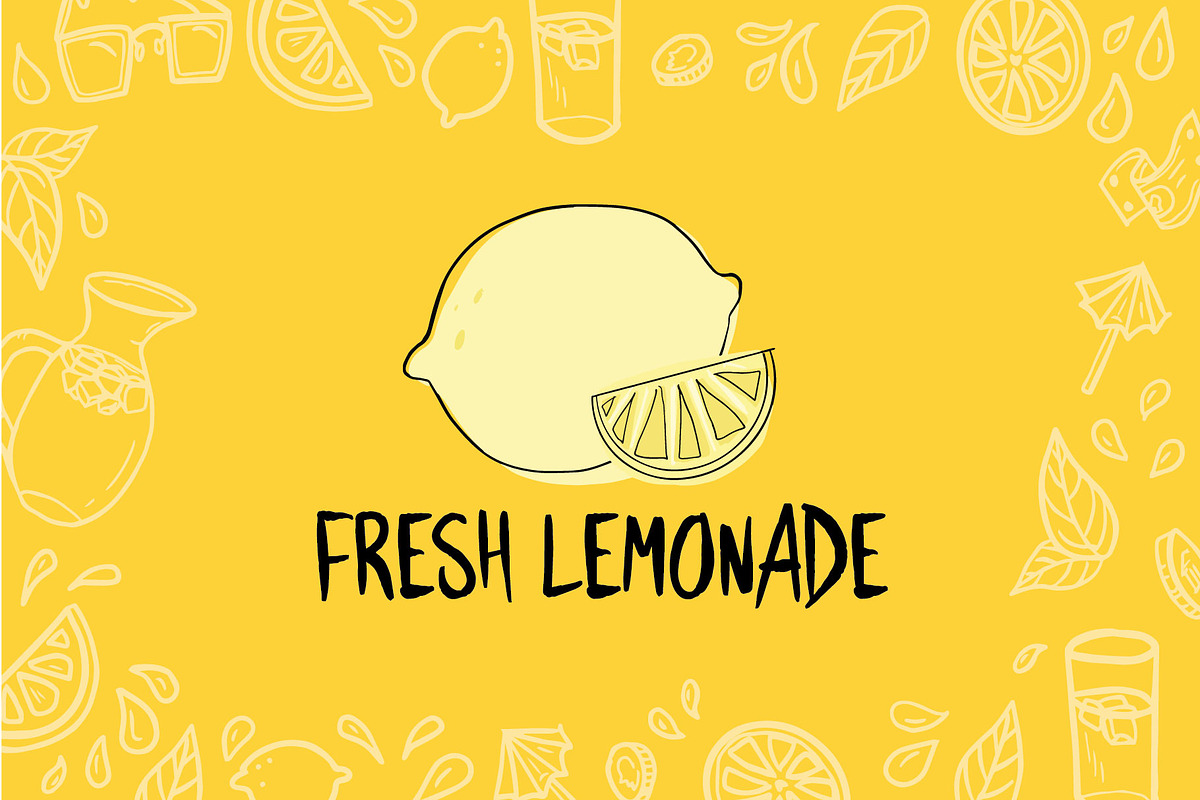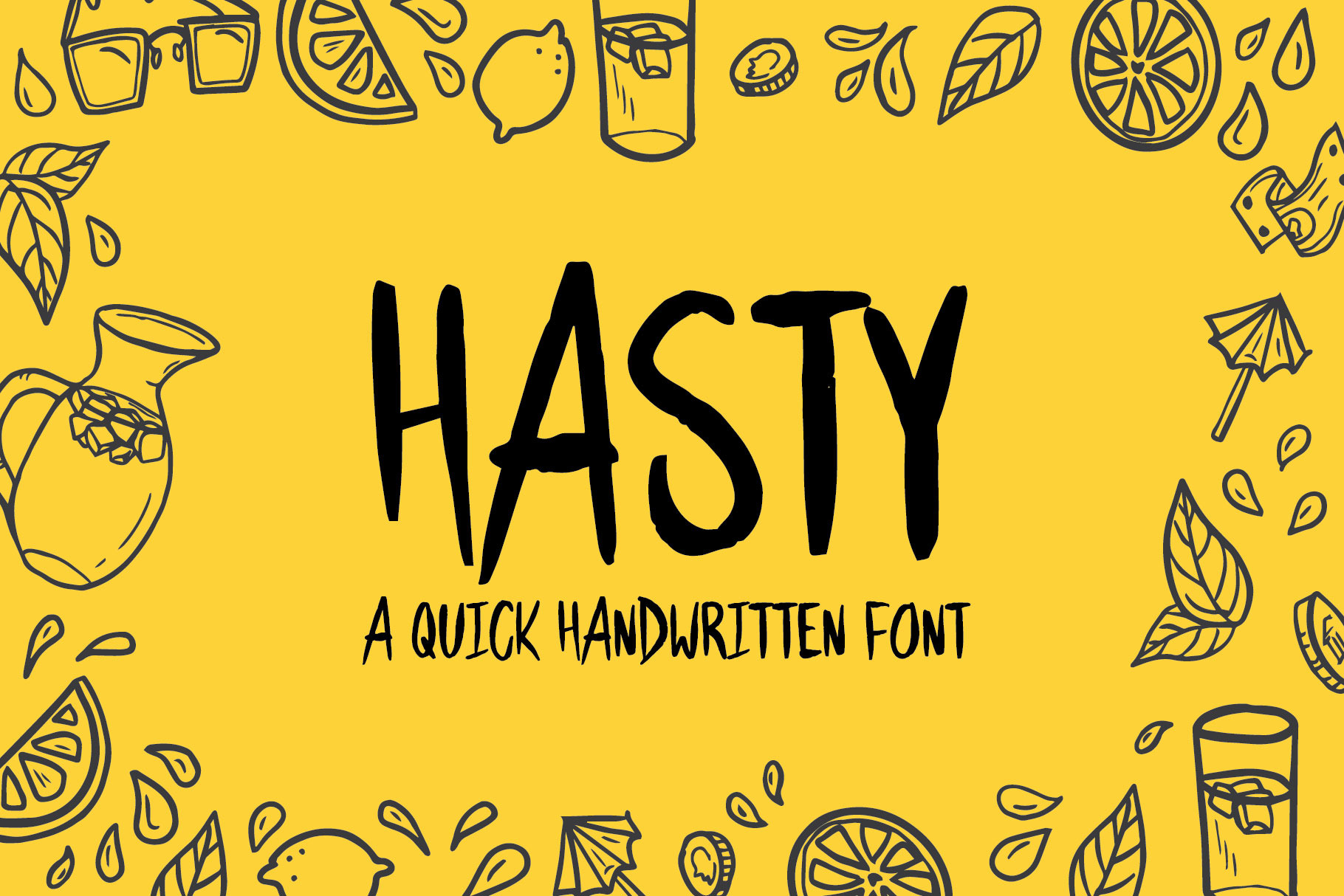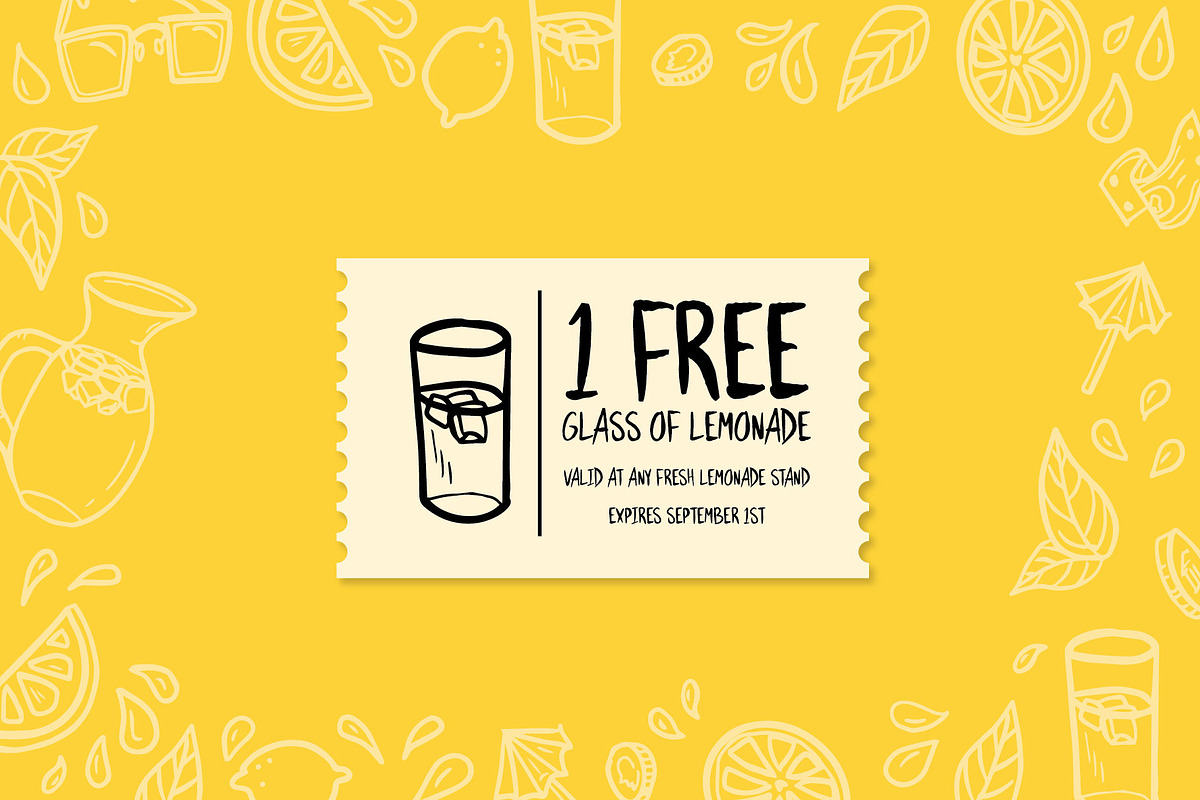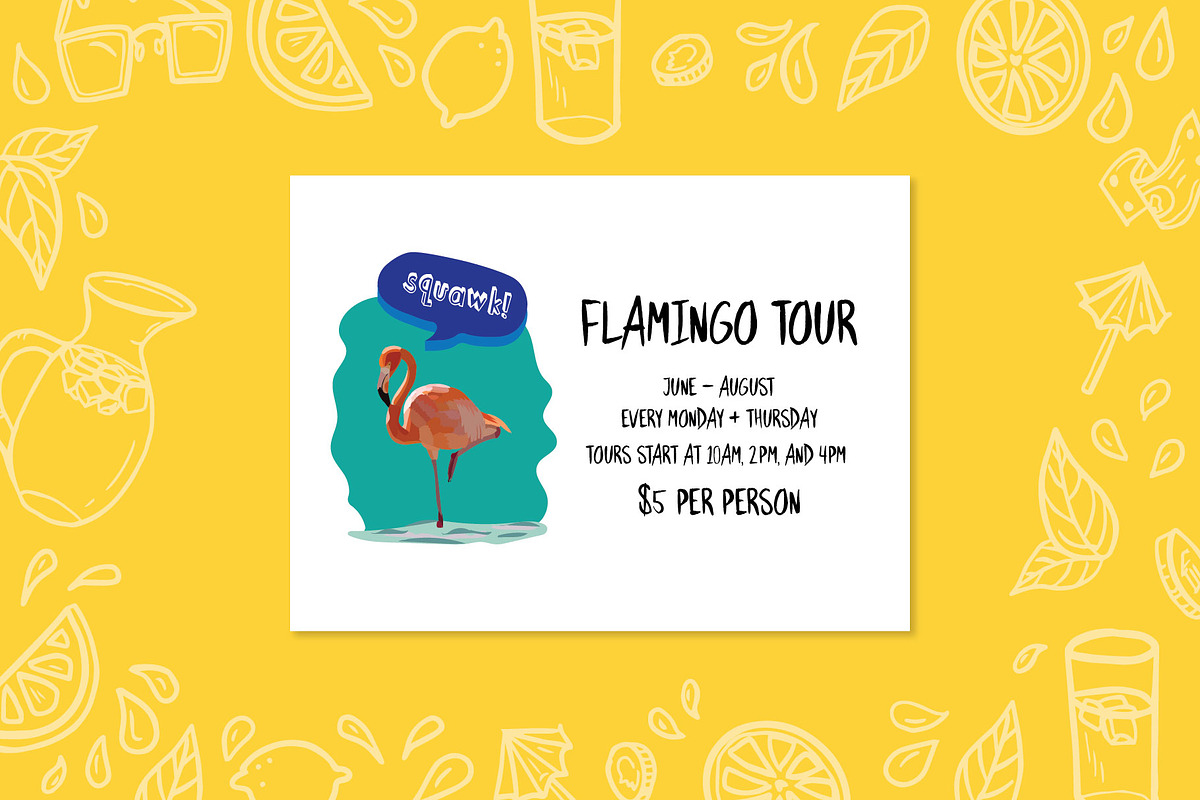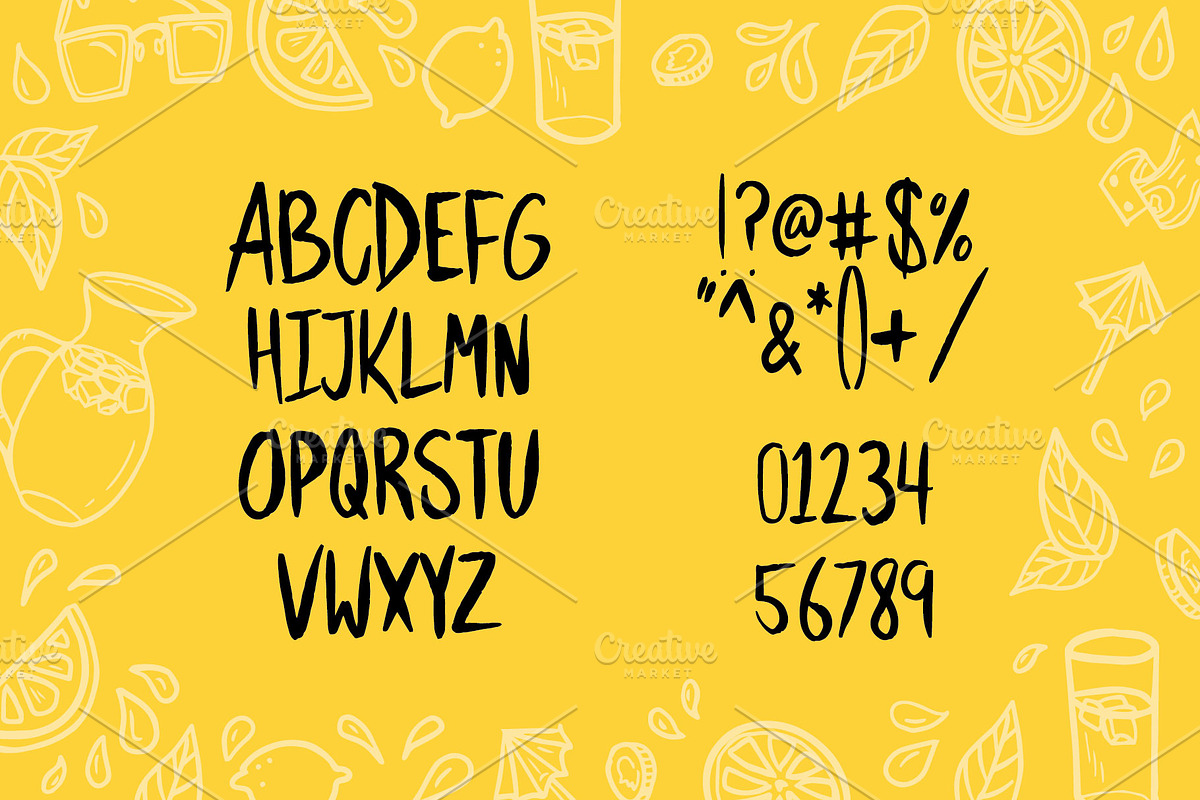
Hasty Font
This hand-drawn display font is perfect for creating logos, apparel, posters, and more! Hasty utilizes hand-drawn letterforms that stand out and attract attention. This casual font is perfect for creating a quick sign or poster or any of your everyday needs!